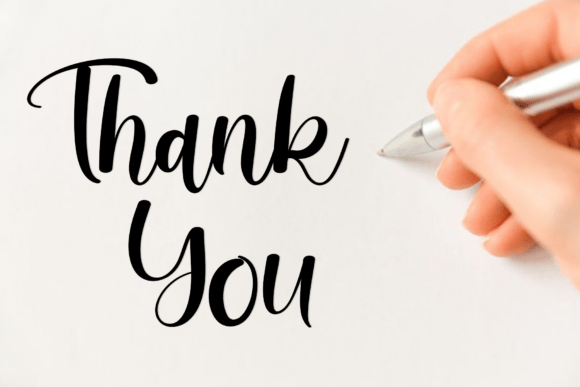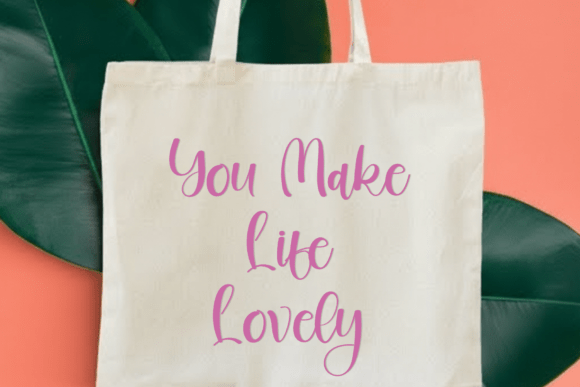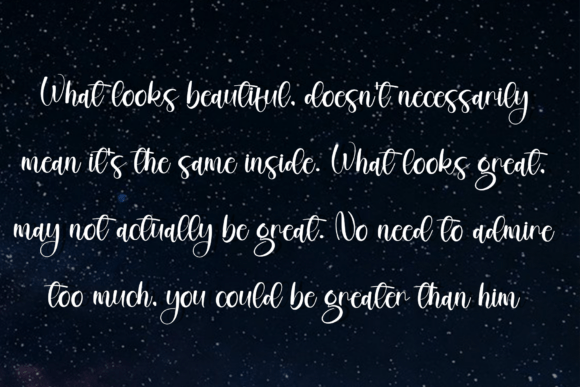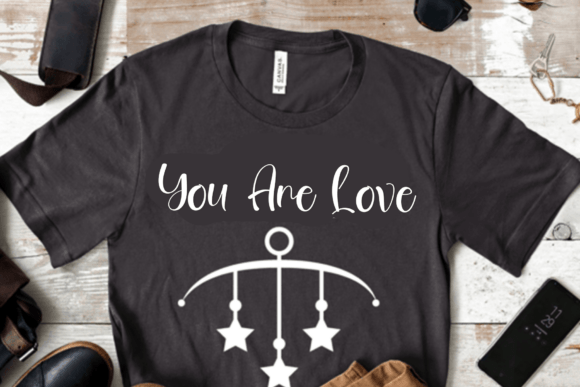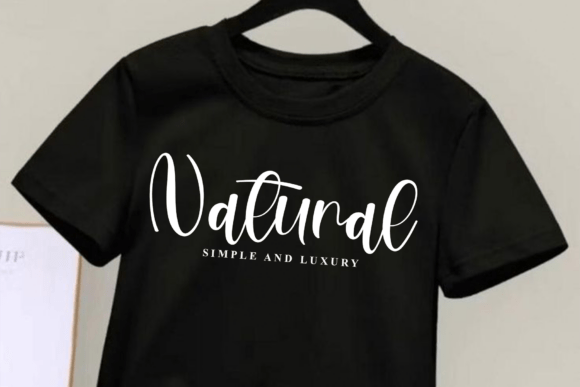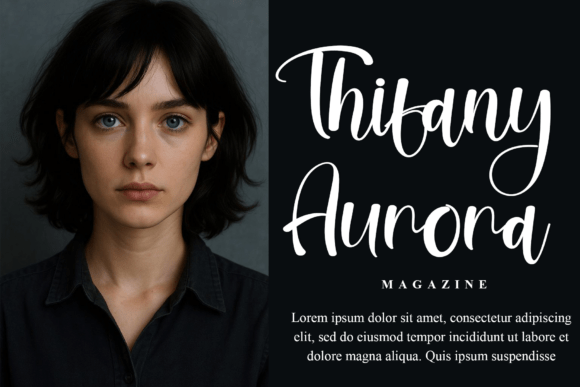
Introducing Beautiful Background: The Epitome of Elegance in Typography
In the realm of typography, few fonts manage to convey the essence of luxury and sophistication as effortlessly as the Beautiful Background font. This stunning typeface is a masterclass in elegant design, boasting a flowing, lyrical structure that exudes romance and refinement. With its gentle swashes and varying stroke weights, Beautiful Background is the perfect choice for designers and crafters seeking to add a touch of high-end flair to their projects.
The Design Philosophy Behind Beautiful Background
Beautiful Background is more than just a font – it’s an experience. Its design is rooted in the principles of luxury penmanship, with a focus on creating a sense of harmony and balance. The font’s smooth, rhythmic flow is reminiscent of handwritten calligraphy, yet it retains a level of sophistication and poise that is unmatched by more traditional typefaces. Whether you’re designing wedding stationery, boutique branding, or premium editorial layouts, Beautiful Background is the perfect choice for projects that demand a high-end aesthetic.
Applications for Beautiful Background
The versatility of Beautiful Background is one of its most compelling features. This font is a powerhouse for a wide range of design applications, including:
- Bridal branding: Create stunning wedding stationery, invitations, and decorations that reflect the elegance and sophistication of the big day.
- Luxury event invitations: Make a lasting impression with bespoke invitations that exude refinement and poise.
- High-fashion social media tiles: Elevate your brand’s online presence with stylish, sophisticated graphics that showcase your products in the best possible light.
- Boutique branding: Develop a unique and compelling brand identity that sets your business apart from the competition.
- Premium editorial layouts: Add a touch of luxury to your publications with Beautiful Background’s elegant, refined typography.
Tips for Using Beautiful Background Effectively
To get the most out of Beautiful Background, consider the following design tips:
- Use it as a large, semi-transparent watermark over photography: This technique adds an extra layer of elegance to your designs, creating a sense of depth and texture.
- Pair it with a light serif: Combine Beautiful Background with a classic serif font for a timeless, sophisticated look that’s reminiscent of Vogue magazine.
- Experiment with different colors and textures: Beautiful Background’s versatility means it can be used with a wide range of colors and textures – don’t be afraid to get creative!
Why Choose Beautiful Background?
In a crowded marketplace, it’s essential to choose a font that stands out from the crowd. Beautiful Background offers a unique combination of elegance, sophistication, and versatility, making it the perfect choice for designers and crafters who demand the best. With this font, you’ll be able to:
- Create designs that exude luxury and sophistication
- Elevate the perceived value of your brand or product
- Stand out in a crowded marketplace
- Develop a unique and compelling brand identity
Beautiful Background is more than just a font – it’s a design statement. With its elegant, refined typography and versatile design, this font is the perfect choice for designers and crafters seeking to add a touch of luxury to their projects. Whether you’re designing wedding stationery, boutique branding, or premium editorial layouts, Beautiful Background is the ultimate choice for those who demand the best.